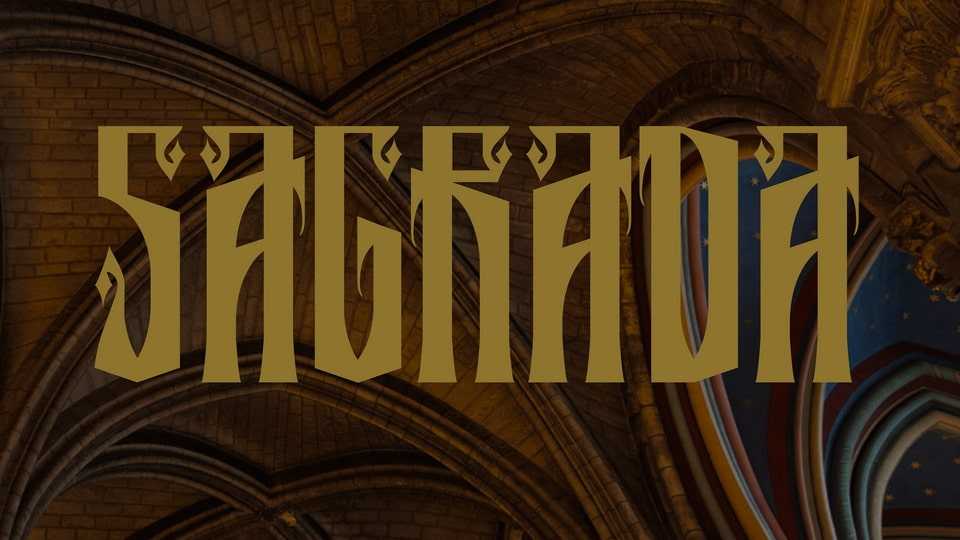
Download Sagrada font, a display typeface inspired by gothic architecture and сyrillic lettering. In each letter everybody can find an unusual mystical image or character.
Designer: Kate Kvebliani